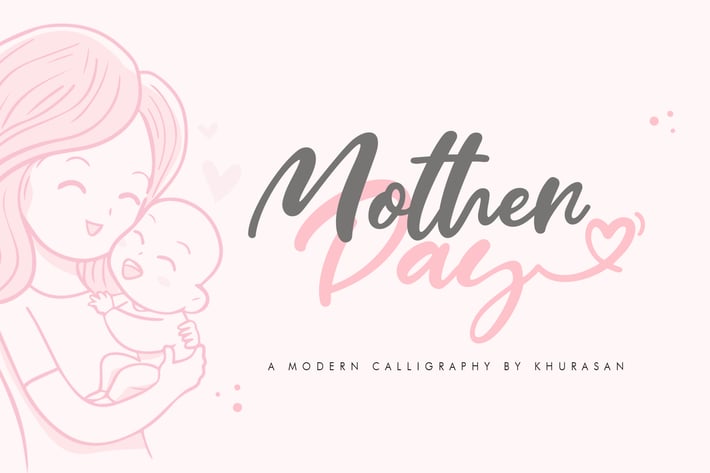
Mother Day Font
The Mother Day Script Font is a fun bold script font, fresh & modern style . Mother Day Script Font suitable for logo, branding, greeting card, poster and any design that you create.